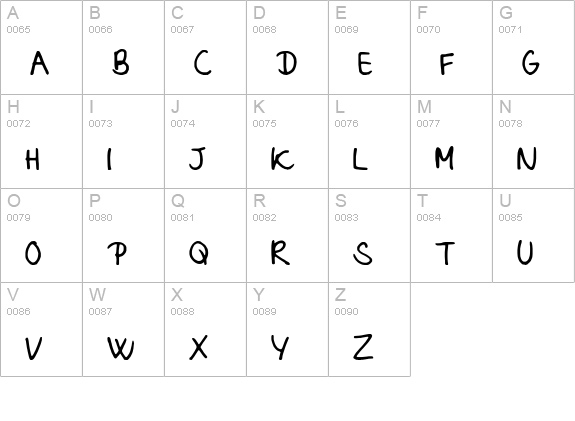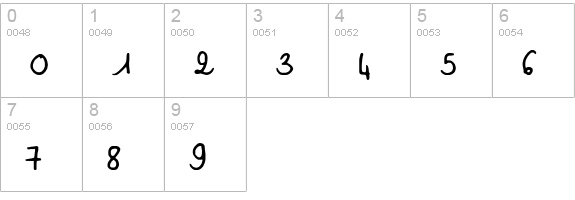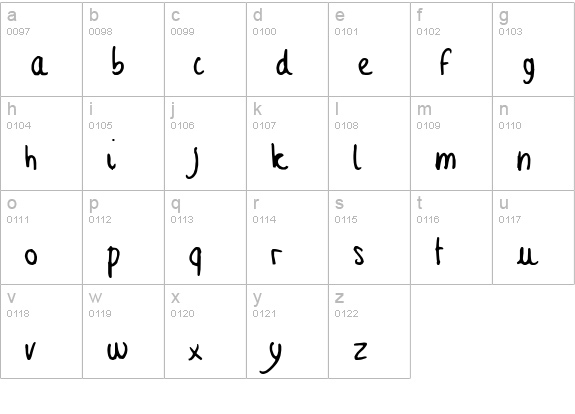
Sophie font is a beautifully designed typeface that exudes elegance and sophistication. With its delicate curves and graceful lines, this font adds a touch of refinement to any project. Whether you're designing a wedding invitation, creating a logo, or crafting a stunning piece of typography art, Sophie font is sure to make a lasting impression. What sets Sophie font apart is not only its stunning aesthetics but also the fact that it is freely available for download at FontsMarket.com. This means that you can bring this exquisite font into your creative endeavors without any cost. Whether you're a professional designer or a hobbyist, having access to high-quality fonts like Sophie font can greatly enhance your work and elevate it to the next level. With Sophie font, you can create a wide range of designs, from classic and timeless to modern and sleek. Its versatility allows it to be used in various contexts, whether it's for print materials, web design, or digital content. Its clean and legible letters ensure readability across different platforms and media, making it a versatile choice for all your design needs. The attention to detail in Sophie font is evident in every letterform. Each stroke is meticulously crafted to create a harmonious balance between elegance and readability. The result is a font that not only looks visually stunning but also ensures that your message is conveyed with clarity and impact. Downloading Sophie font from FontsMarket.com is a simple and convenient process. With just a few clicks, you can bring this exquisite typeface into your design arsenal and start creating beautiful and professional-looking projects. Whether you're a seasoned designer or just starting out, Sophie font is a valuable addition to your font collection. In conclusion, Sophie font is a free and captivating typeface that effortlessly combines elegance and readability. Its versatility and attention to detail make it a perfect choice for a wide range of design projects. Download Sophie font from FontsMarket.com today and unleash your creativity with this exceptional font.